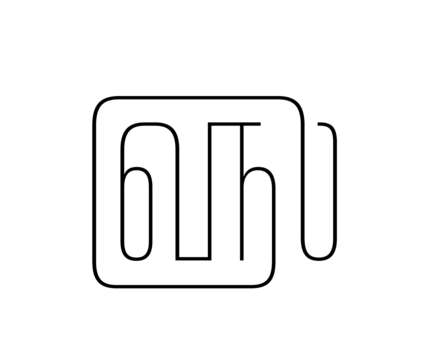
Akhand Tamil Display is a family of 3 ultra-condensed, mono-linear typefaces for extremely large sizes. It's a part of Akhand Tamil and Akhand Multiscript. You can download it for free.
Family Name Akhand Tamil Disp
Designer(s) Jonny Pinhorn
Available Style Hairline, Extrathin, Thin
Classification Sans, Display
Supported Languages Tamil